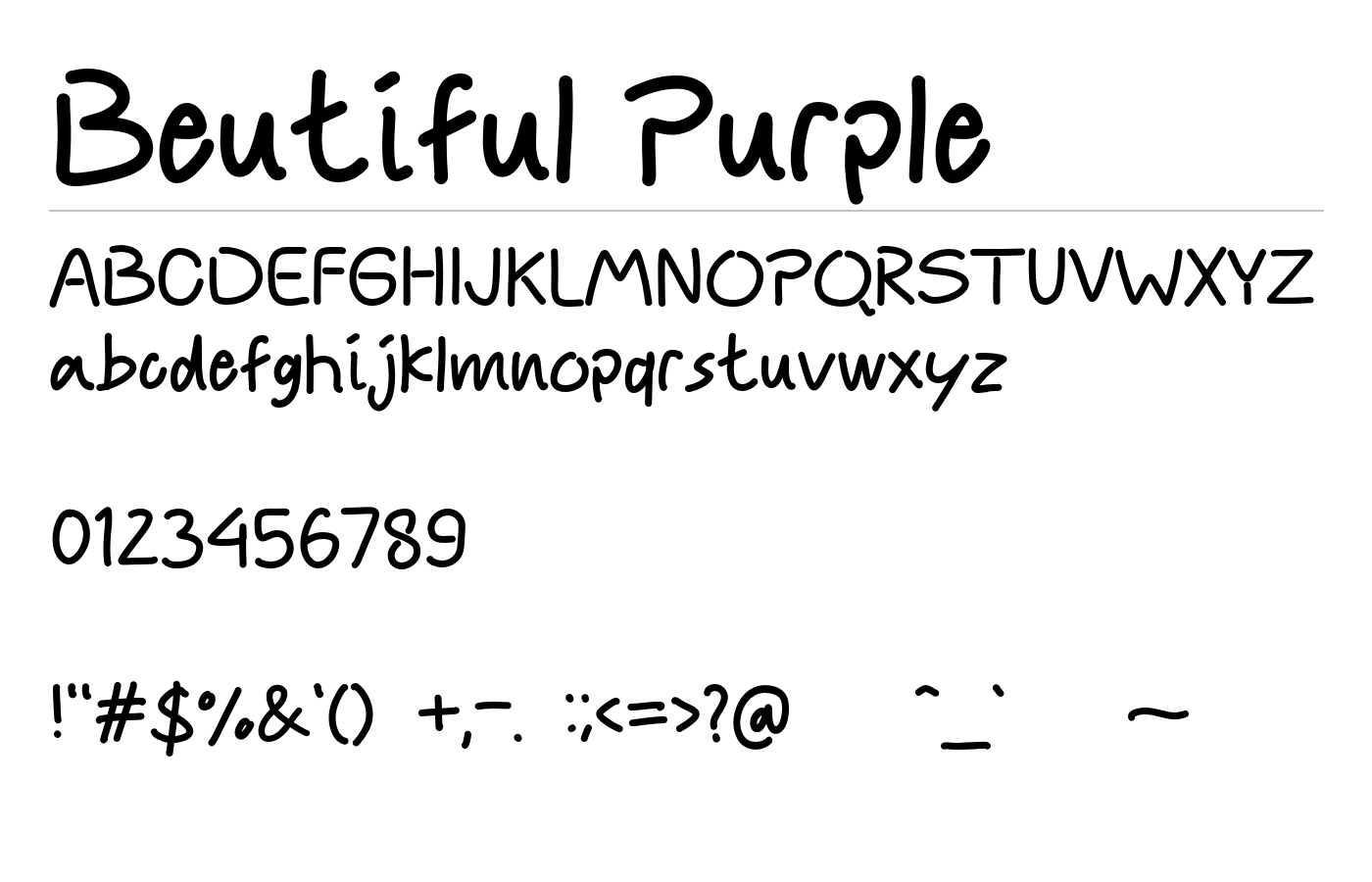
Beautiful Purple is a playful and casual handwritten sans serif font with a friendly and approachable feel. Its smooth, rounded strokes and informal style make it perfect for creative projects, children's materials, and relaxed branding where warmth and personality are key. This font works well for logos, invitations, and websites that seek a fun and personal touch.
Beutiful Purple Font
About Beutiful Purple Font
| Font family | Beutiful Purple Font |